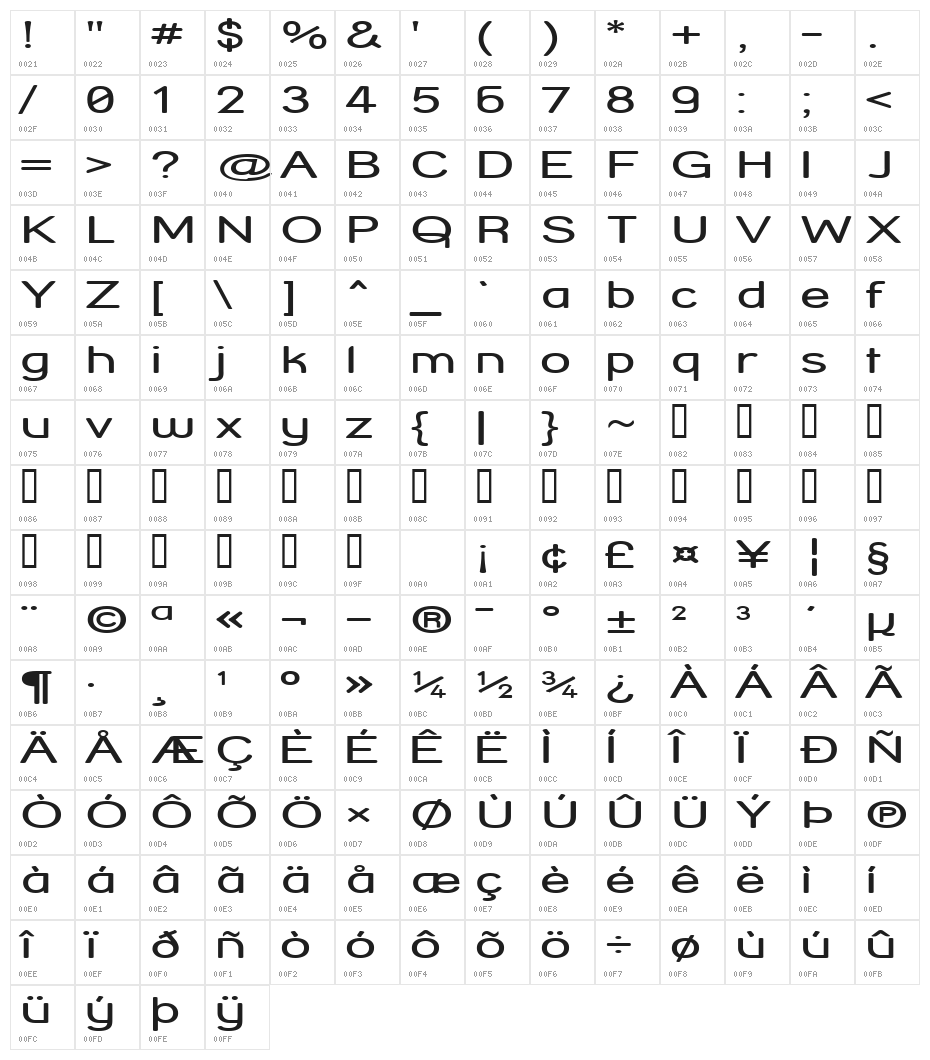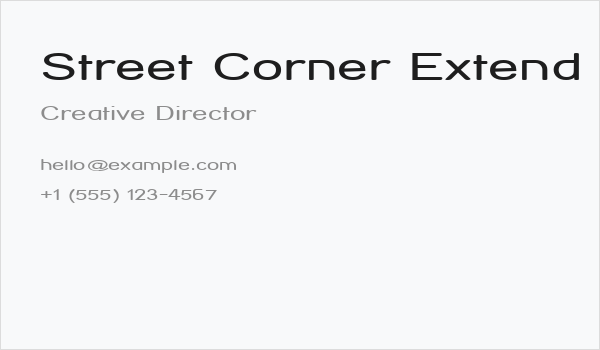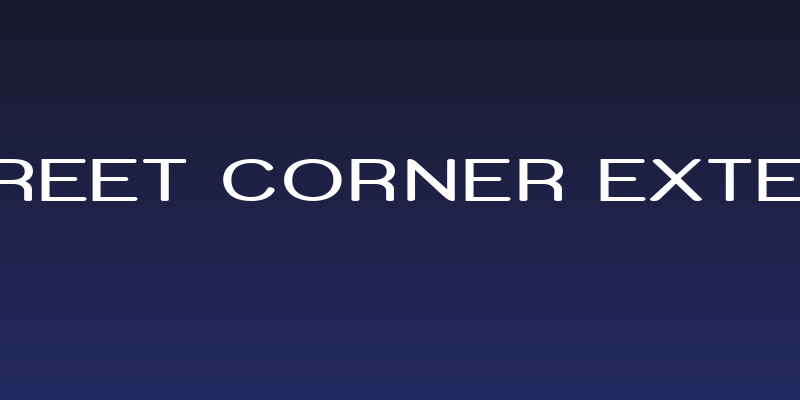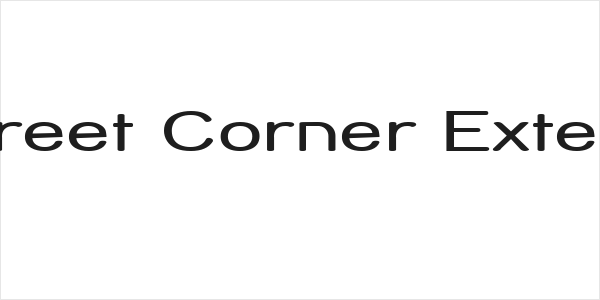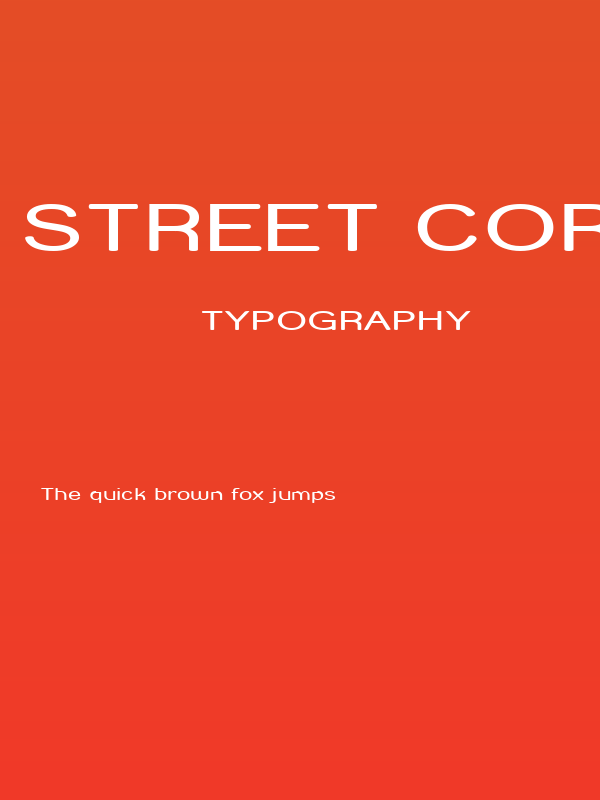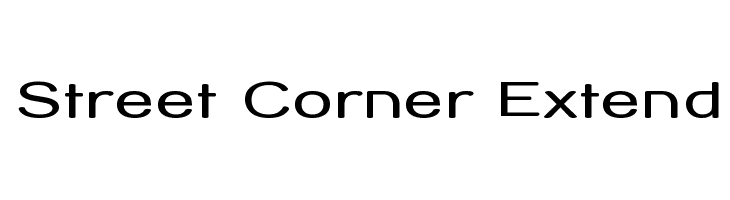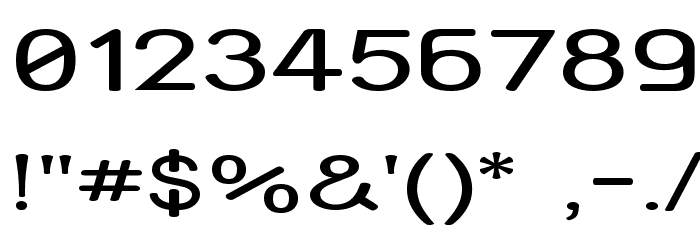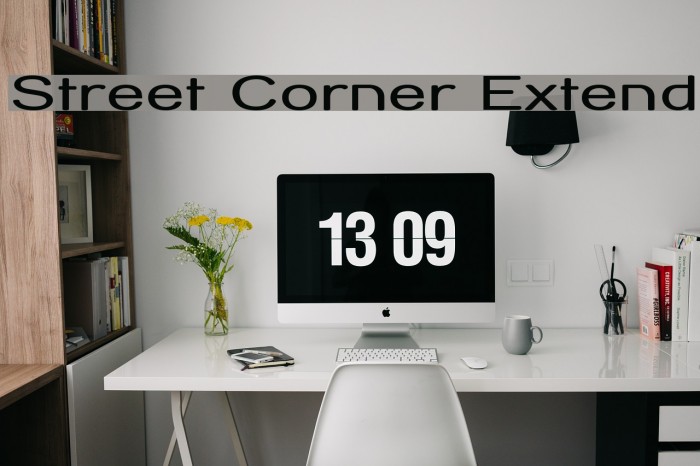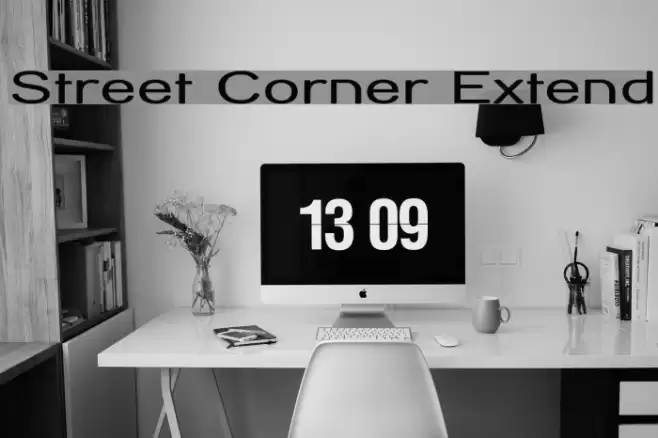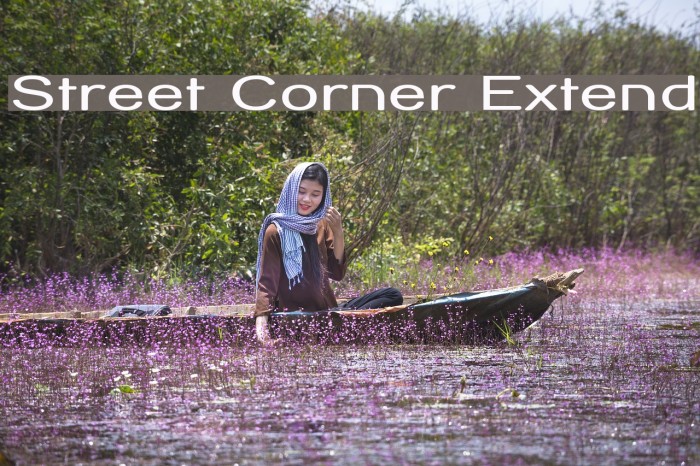
Street Corner Extend Font
Street Corner Extend Description
This font features a clean and modern sans-serif design with smooth, rounded edges and a uniform stroke width. The characters are well-balanced, offering a harmonious appearance that is both professional and approachable. The uppercase letters are bold and assertive, while the lowercase letters maintain a friendly and open feel. The numerals are clear and easy to read, making them suitable for a variety of applications. Special characters are designed with the same attention to detail, ensuring consistency throughout the font. This typeface is versatile, making it ideal for both digital and print media.
| Use Case | Headlines, Body text, Logos |
| Proposed Projects | Ideal for branding, web design, advertising, and editorial projects. |